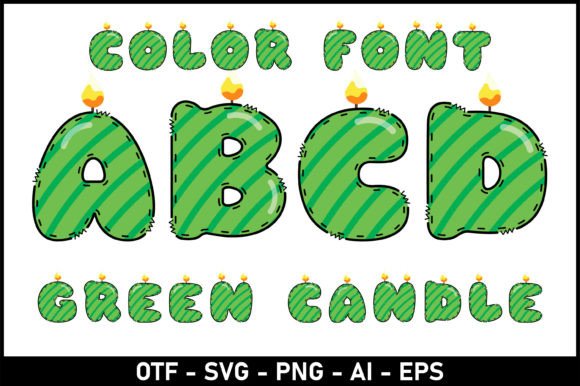
Welcome to the world of Green Candle Font - a delightful and charming font family, crafted by the skilled hands of Veil, specifically designed to add a touch of whimsy and artistry to your creative projects. Step into a world where imagination knows no bounds, and written words transform into captivating works of art.
Let your mind wander through enchanted forests, where playful letters dance upon the pages of children's books, inviting young readers on a magical journey. Green Candle Font's whimsical nature brings life to posters, invitations, and greeting cards, turning every occasion into a celebration of creativity.
Unleash your inner artist and watch as your designs flourish with Green Candle Font's vibrant colors, flowing lines, and enchanting shapes. It's the perfect tool to add a touch of magic to your digital designs, creating eye-catching logos, website headers, and social media posts that will leave a lasting impression.
Embrace the versatility of Green Candle Font and explore its endless possibilities. Whether you're a seasoned designer or just starting your creative journey, this font family will elevate your projects to new heights. Let your imagination soar and let Green Candle Font guide you on an artistic adventure that knows no limits.